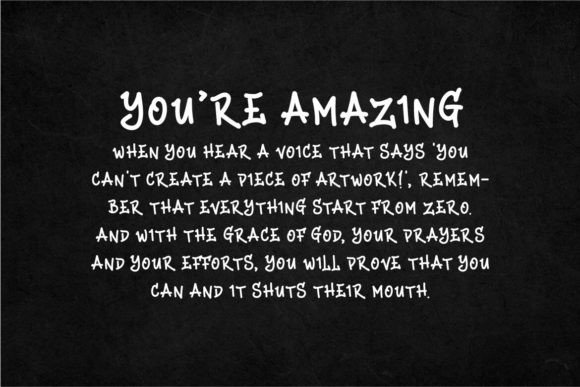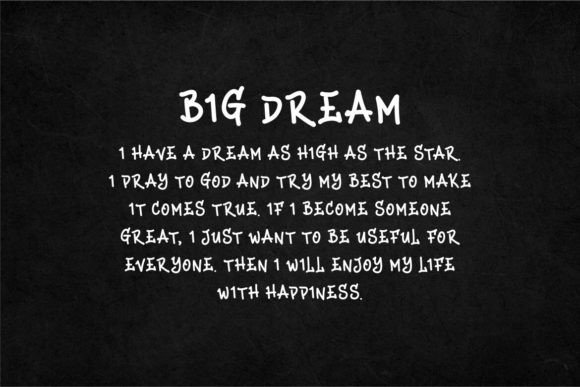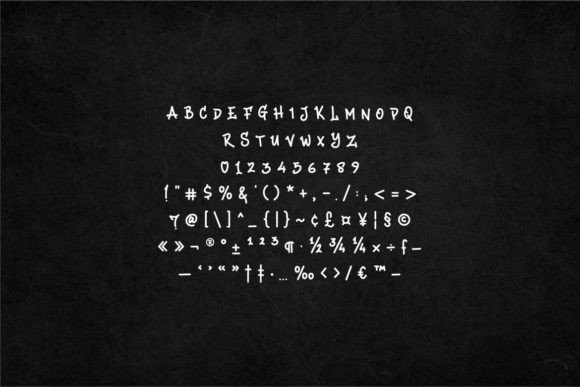
Introduction to Sagobe Font Font
Fonts play a crucial role in design, and the Sagobe Font font is a typeface that brings both character and versatility to any project. Whether you’re working on a branding project, a website, or a print design, the Sagobe Font font offers a unique style that can elevate your work.
looking for a font with street art style **Sagobe** is here.
Key Features of Sagobe Font Font
Why Choose Sagobe Font Font?
The Sagobe Font font is more than just a typeface – it’s a design tool that helps you communicate your message with style and clarity. Its unique character set and versatile design make it suitable for a wide range of applications, from elegant invitations to bold headlines.
With its carefully crafted letterforms and balanced proportions, the Sagobe Font font ensures readability and visual appeal across all mediums.
What makes Sagobe Font font special?
The Sagobe Font font stands out with its unique design, exceptional readability, and versatility across various design applications.